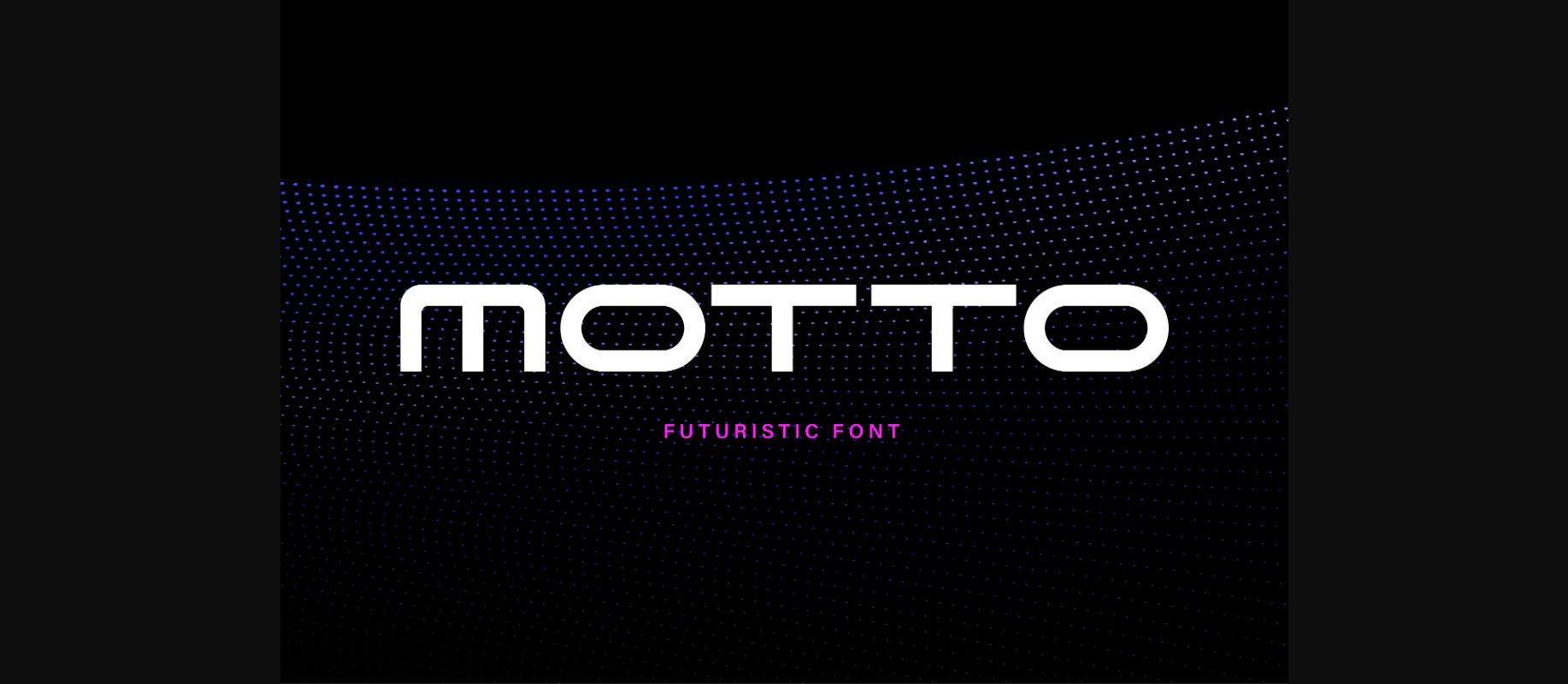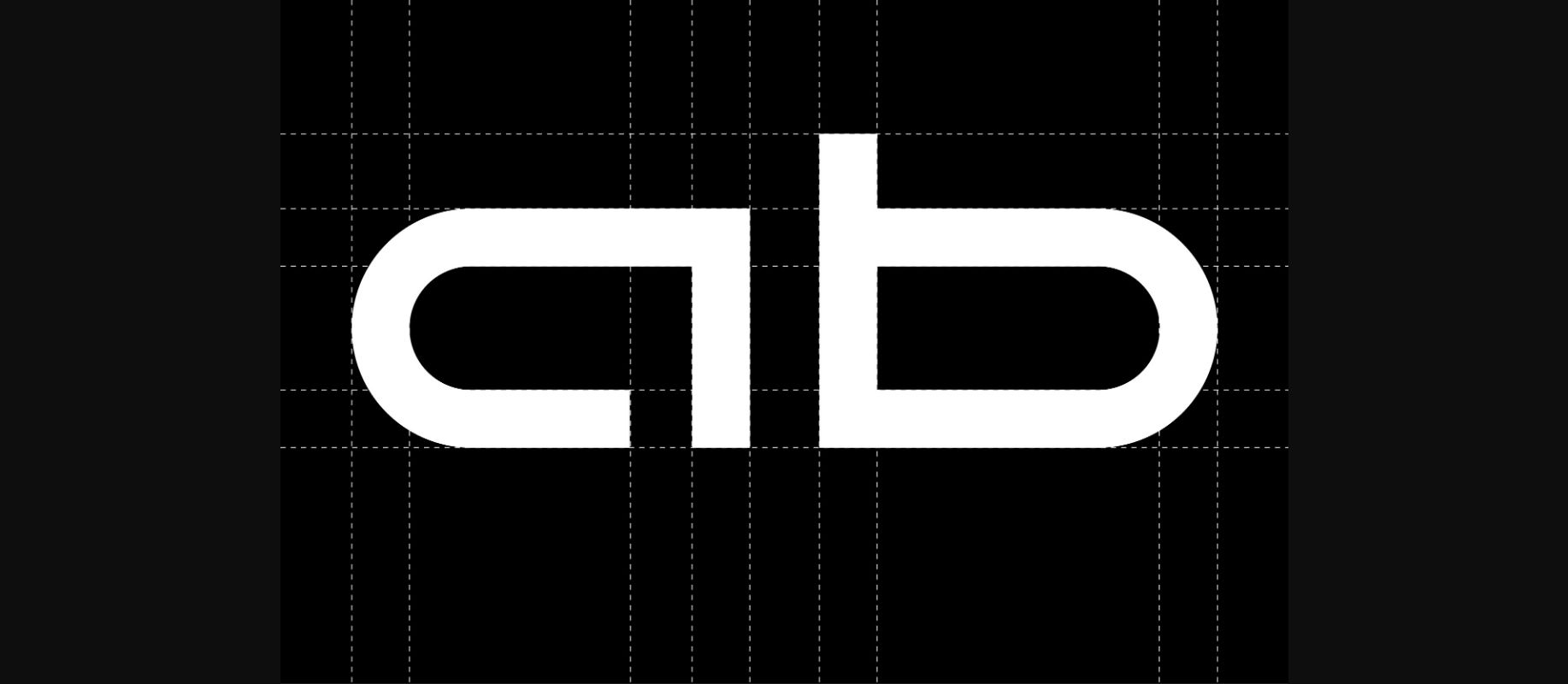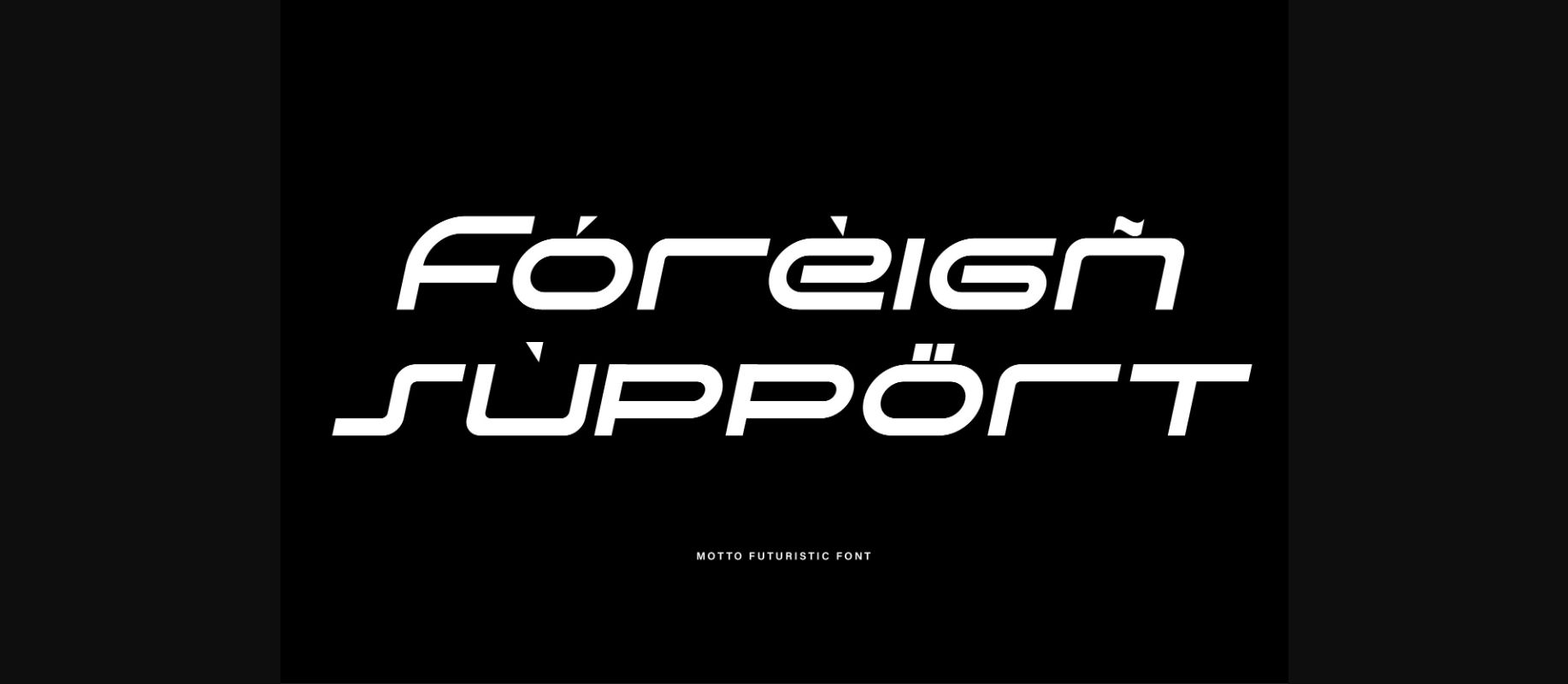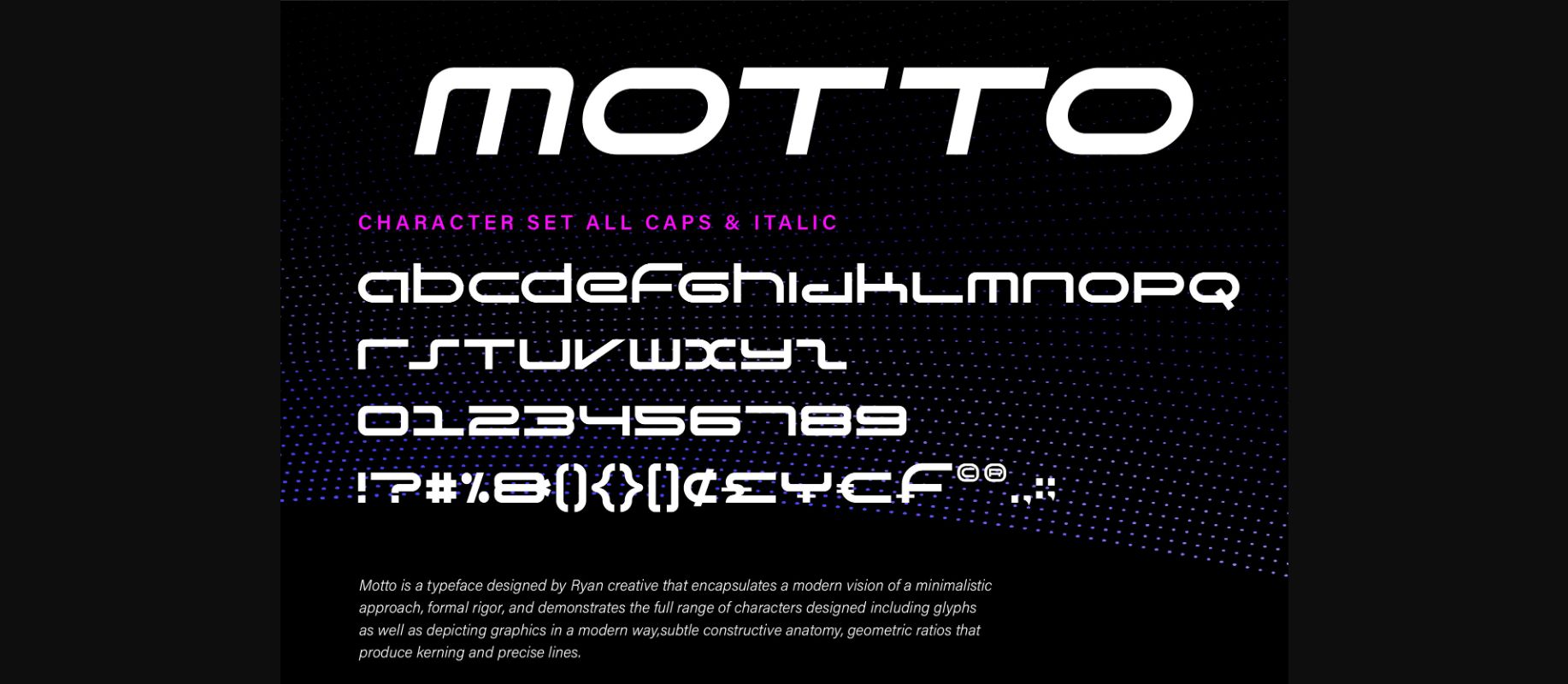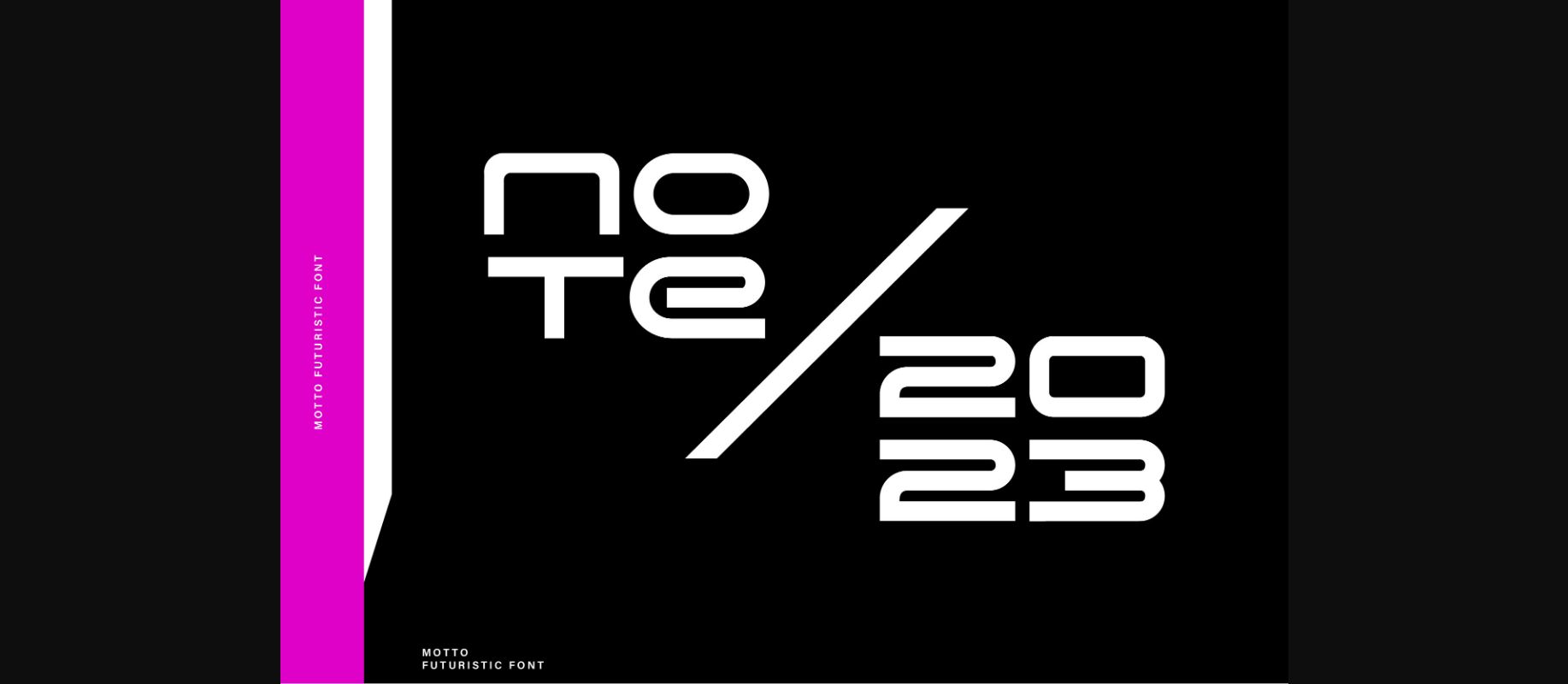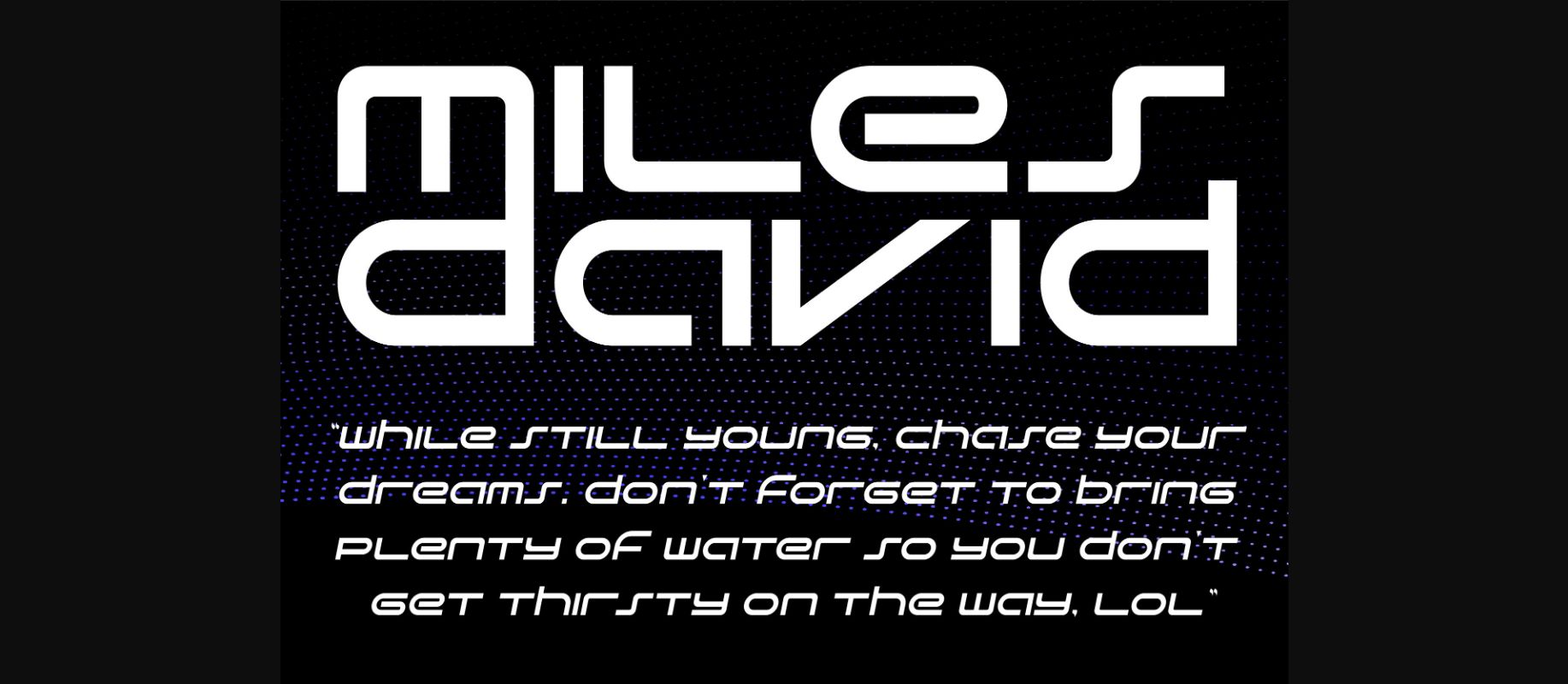
About Motto Font
Motto is a typography that encapsulates a modern minimalist vision approach, and formal rigor and shows a variety of designed characters including glyphs as well as depicting graphics in a modern way, that subtle constructive anatomy, those geometric ratios produce kerning and precision lines.